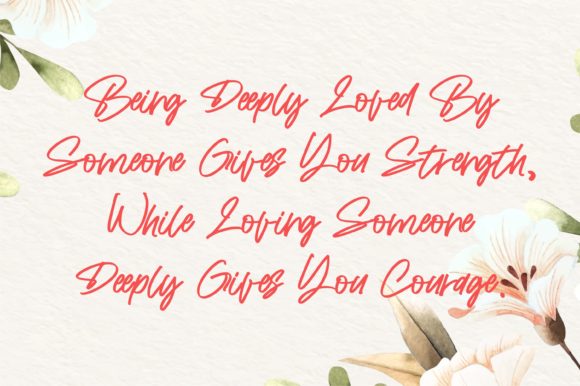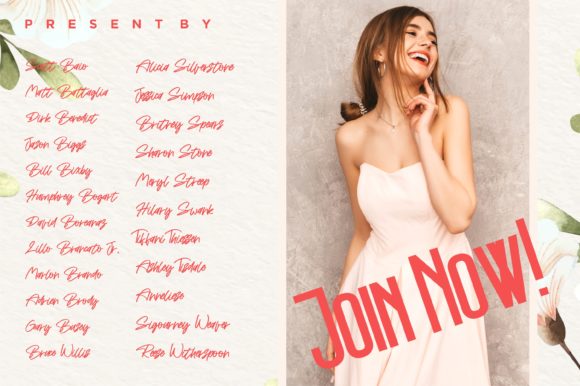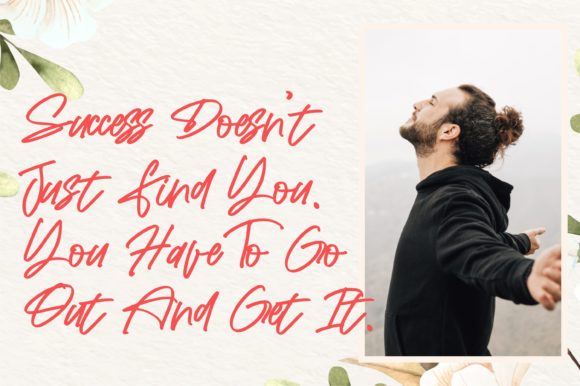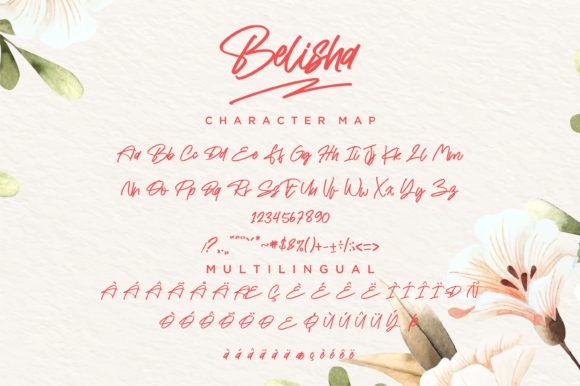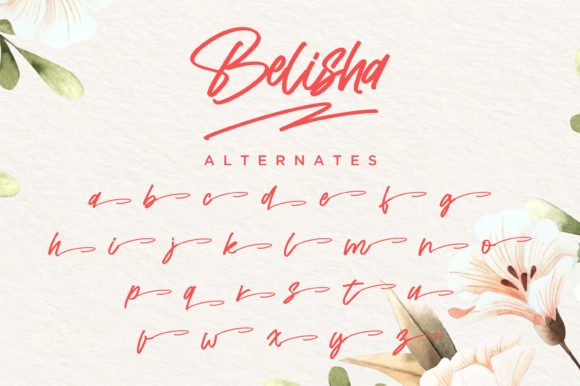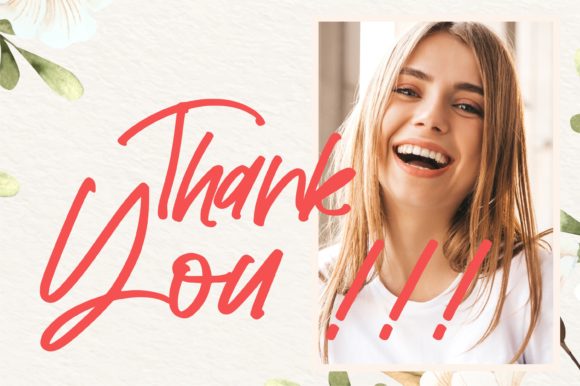
Belisha Font
About Belisha Font
Belisha is a beautiful and relaxed handwritten font. Brushed and timeless, this font is ideal for each of your casual designs.